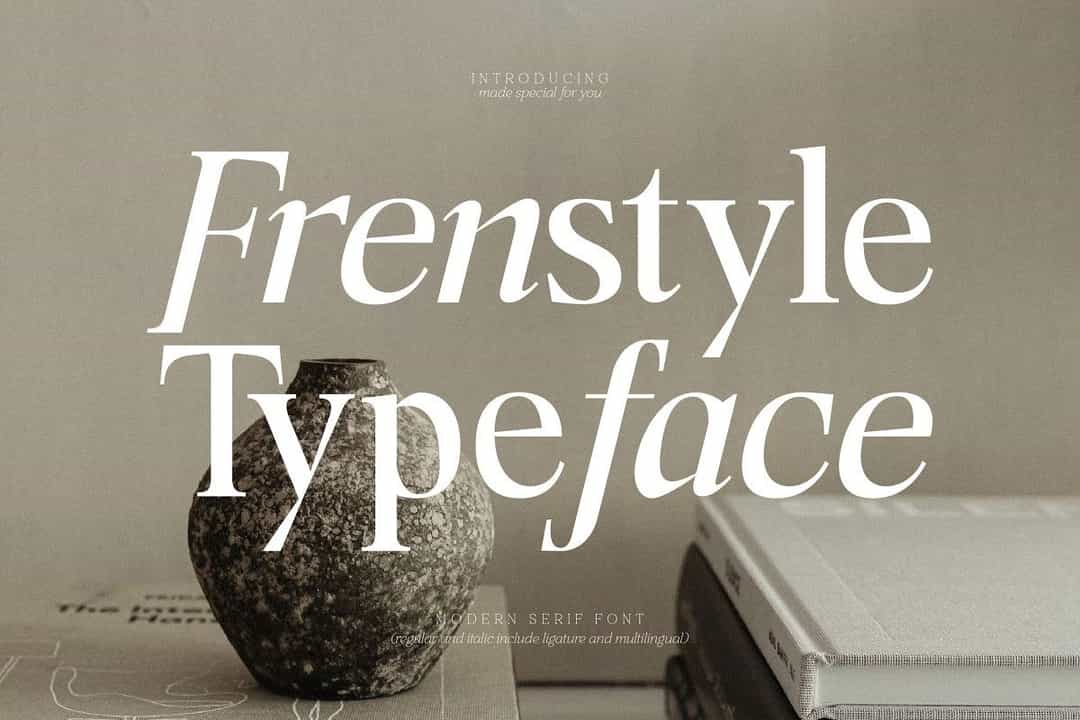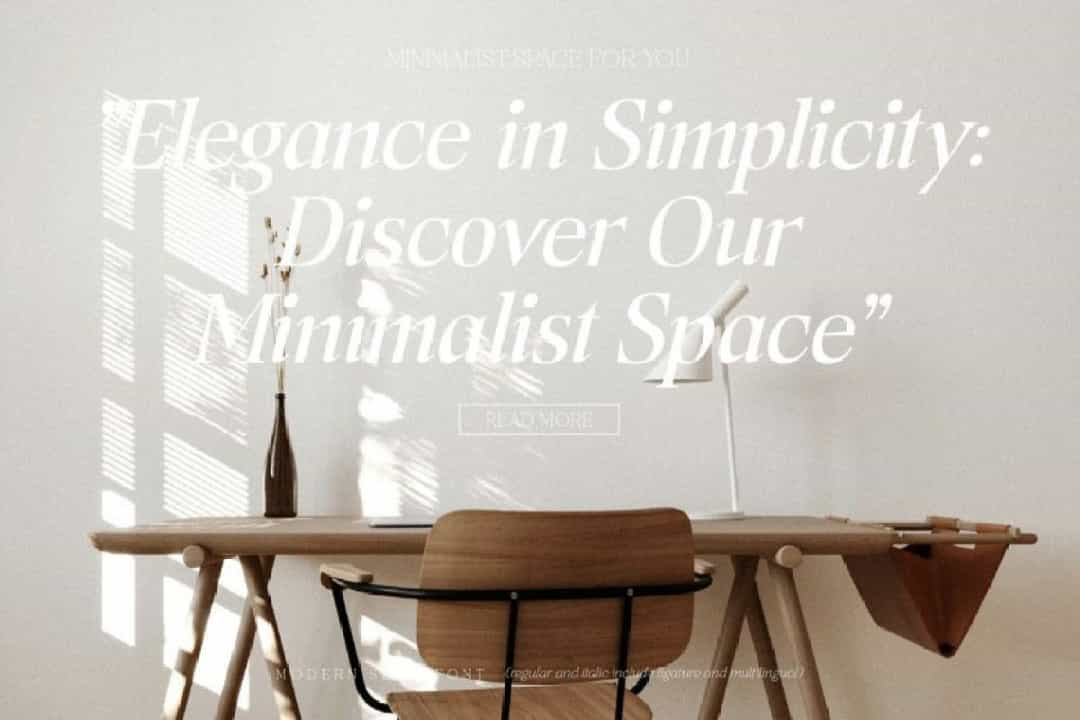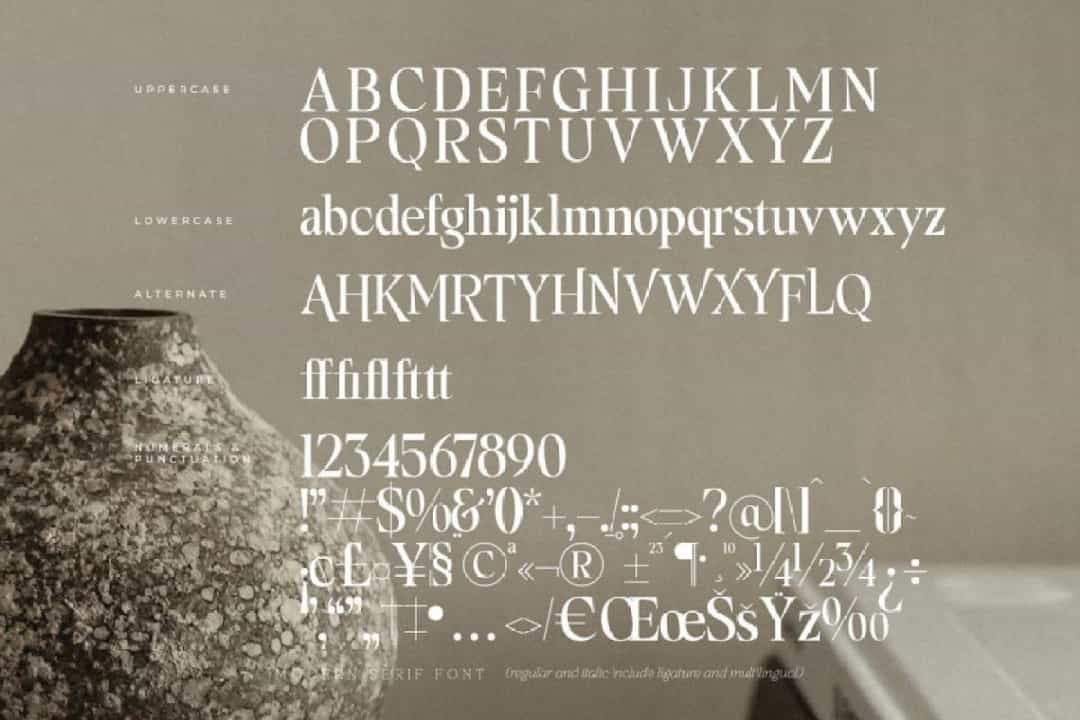
Discover Frenstyle Font, part of the Serif Basic collection—a versatile and unique font perfect for adding a personal touch to your projects. Download it for free and enjoy crafting designs with style, from invitations to social media posts. This font is available exclusively for personal use, giving you the freedom to create without limits. Unlock your creativity with Frenstyle Font today!
Frenstyle is a classic serif typeface with its distinct style and modern appearance that makes for an eye-catching logo, book or film name design, clothing brand clothing designs, magazines lettering quotes etc. It is an ideal font to create classy logos as well as elegant logos for book or film titles and movie names – perfect for elegant logo designs as well as creating eye-catching book or film cover art, fashion brand clothing designs magazines lettering quotes etc.